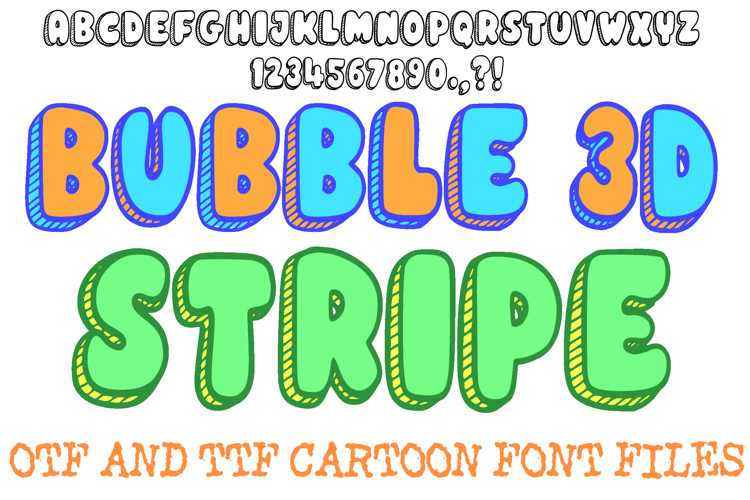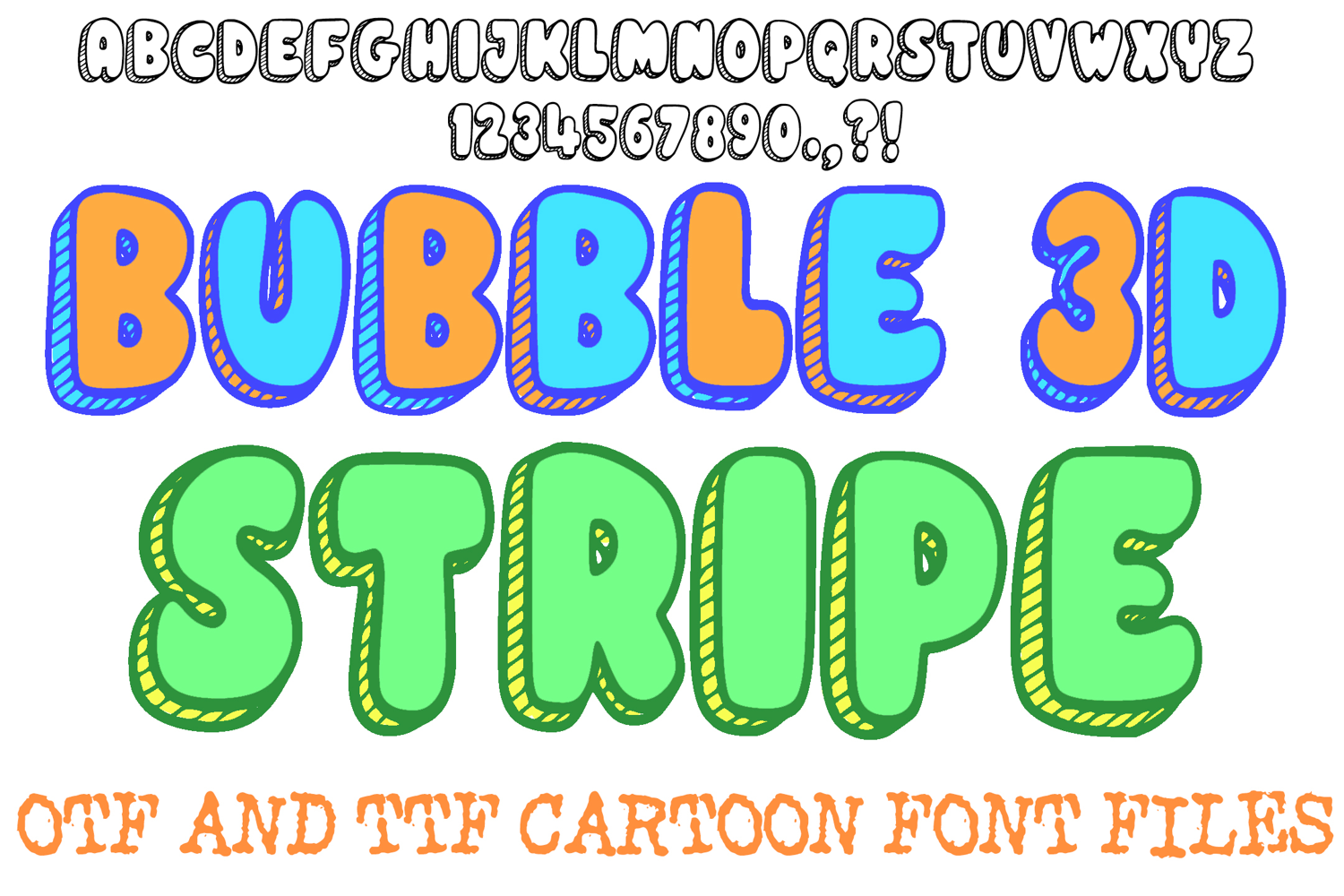
Bubble 3D stripe Cartoon Alphabet Lettering ABC Text Font
Make your designs pop with the 3D Bubble Stripe Cartoon Font! This fun, energetic typeface features classic, rounded bubble letters with a clever hand-drawn shadow effect. The 3D depth is created by dynamic, slanted "stripe" lines, giving the font a vibrant, cartoon feel and adding immediate depth to your text.
This highly popular style is perfect for any project needing high visual impact and a playful vibe. It's an excellent choice for children's branding, comic book titles, party invitations, birthday shirts, and video game graphics. The bold outline and clear striping make it a fantastic coloring font and ideal for cutting vinyl on machines like Cricut and Silhouette.
Add dimension and fun to your headers and logos with the 3D Bubble Stripe Cartoon Font